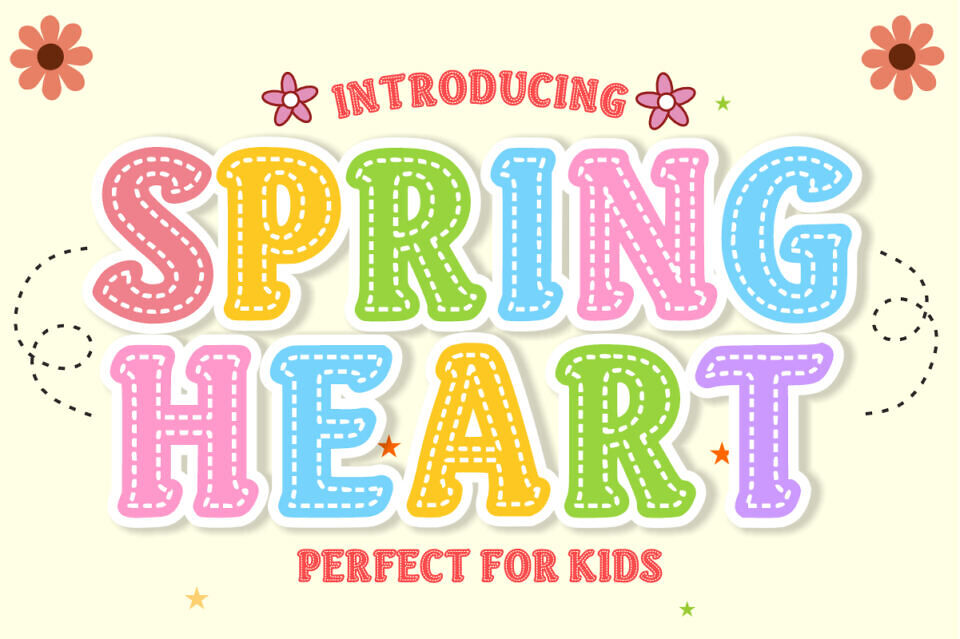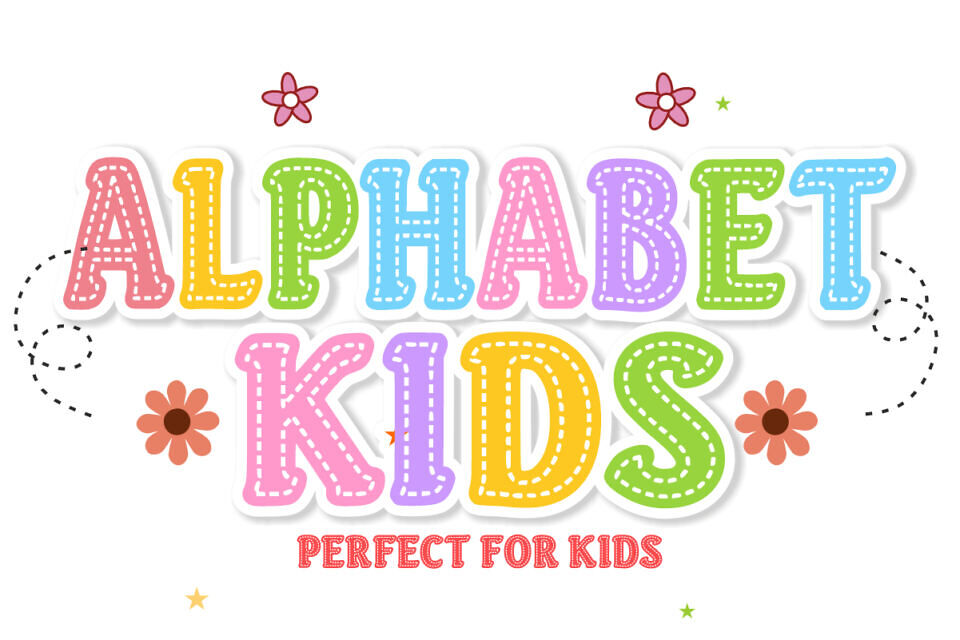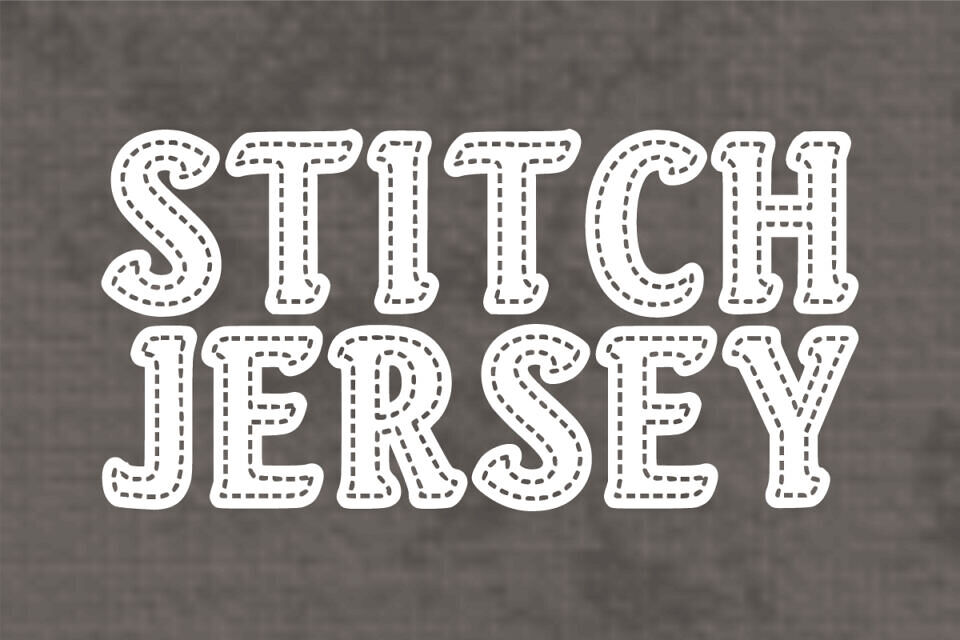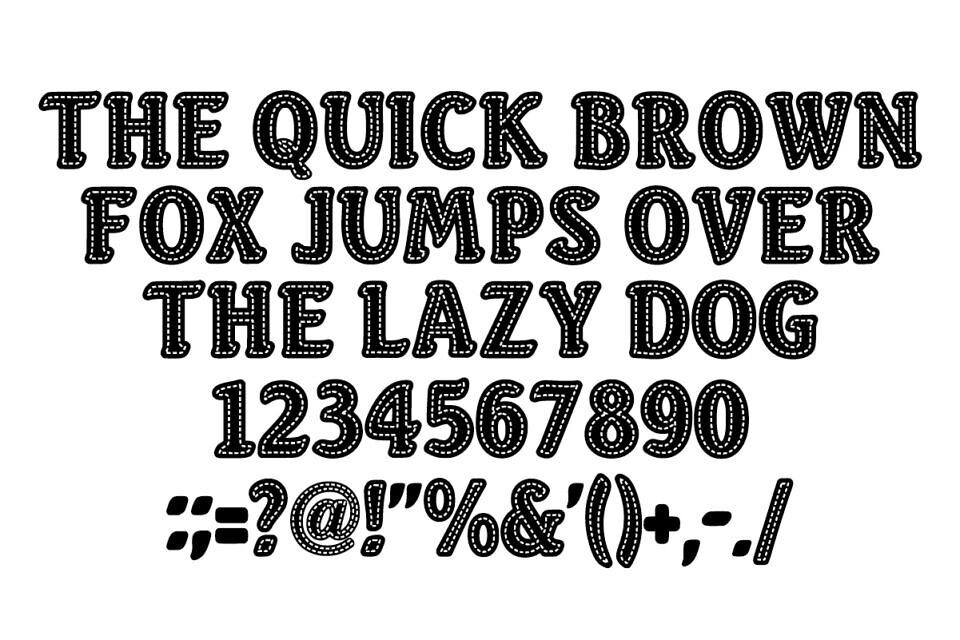
Celebrate the season of creativity with Spring Heart, a charming and bubbly display font featuring a unique stitched-effect detail! Designed to look like handmade embroidery or paper cut-outs, this font brings a warm, crafty, and joyful vibe to every project.
With its chunky shapes and dashed-line accents, Spring Heart is the perfect choice for creators who love a DIY aesthetic. It’s bold, easy to read, and guaranteed to make your designs look “sew” special!